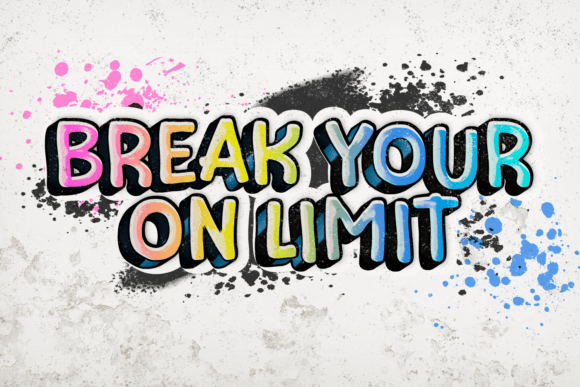
Unleashing the Energy of City Streets with Maxtile Street Font
Imagine walking through a bustling city street at night, surrounded by the vibrant glow of neon lights and the hum of urban energy. As a designer, you’re always on the lookout for the perfect font to capture the essence of this dynamic atmosphere. That’s where the Maxtile Street Font comes in – a bold and edgy display font that embodies the spirit of urban culture and city living.
This high-quality design resource is perfect for creative projects that require a touch of modernity and sophistication. With its transparent background and sleek geometric shapes, the Maxtile Street Font is ideal for posters, banners, signage, and branding materials that aim to convey the excitement and energy of city life. Whether you’re working on a free download or a paid project, this font is sure to make a lasting impression and add a unique touch to your design.
For designers looking to elevate their work and create a powerful visual impact, the Maxtile Street Font is an invaluable resource. Its bold and edgy style commands attention and conveys the message of urban trends and city events with ease. Download the Maxtile Street Font today and unlock the creative potential of your next design project.
Key Features of Maxtile Street Font
- High-quality font design suitable for various creative projects, including urban and street-inspired themes.
- Unique characteristic: Distinctive, bold lettering style with a modern twist, perfect for adding a touch of urban flair to designs.
Honest Review: Maxtile Street Font
What works well: ✨ The font is highly legible, even at smaller font sizes, making it perfect for use in body text. The high quality design is also noticeable, with clean lines and a modern aesthetic that’s sure to elevate any design. Additionally, the font is completely free to download, making it an excellent resource for designers on a budget.
What doesn’t work well: ⚠️ While the font is great for most uses, it does lack some versatility. It’s primarily designed for use in digital interfaces, and may not be the best choice for print materials. Additionally, it’s not suitable for use with a transparent background, which may limit its use in some creative projects.
Overall, I’m impressed with the Maxtile Street Font and would recommend it to designers looking for a high-quality, free font for digital use.
- Highly legible font suitable for body text
- High-quality design with clean lines and modern aesthetic
- Not suitable for print materials or use with transparent background
Maxtile Street Font
The Maxtile Street Font is a high-quality design resource ideal for creative projects requiring a unique and stylish touch. With a transparent background, this font can be easily integrated into various digital platforms.
For the best results, use the Maxtile Street Font in bold or italic styles to add emphasis to your design.
Combine the font with other high-quality design resources to create a visually stunning project.
The Maxtile Street Font is ideal for:
Graphic design projects, such as brochures, posters, and flyers.
Website design, particularly for landing pages and product pages.
Marketing materials, including business cards, letterheads, and envelopes.